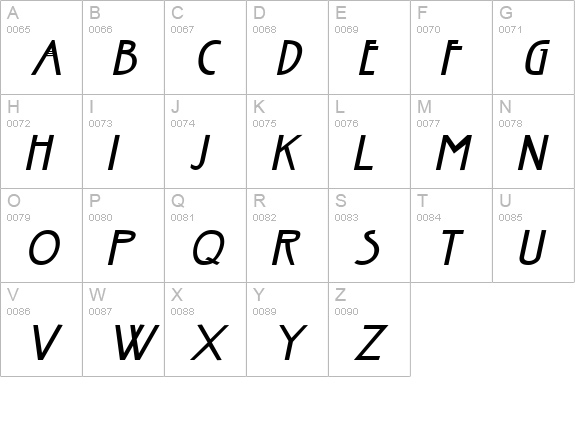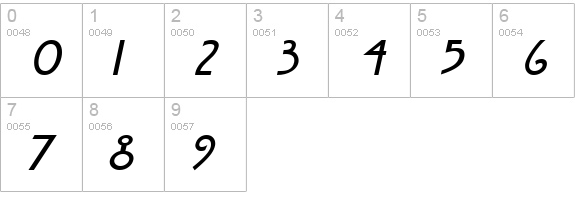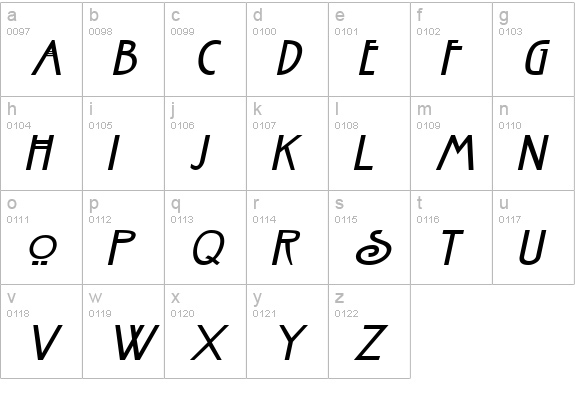
Fanzee Italic Font Details
Fanzee Italic is a distinctive, italic variant in the Fanzee typeface family \xE2\x80\x94 well suited to design and typography projects.
Fanzee Italic font exudes elegance and sophistication with its sleek and modern design. The italic style adds a touch of flair and sophistication to any project, making it perfect for stylish branding, editorial designs, and more. The flowing curves and sharp angles of Fanzee Italic create a dynamic and eye-catching look that is sure to captivate your audience. The best part? Fanzee Italic font is completely free to download at FontsMarket.com. You can easily access this stunning typeface and elevate your designs without any cost. Don't miss out on this opportunity to add a touch of class to your projects with Fanzee Italic font, available for free download now.